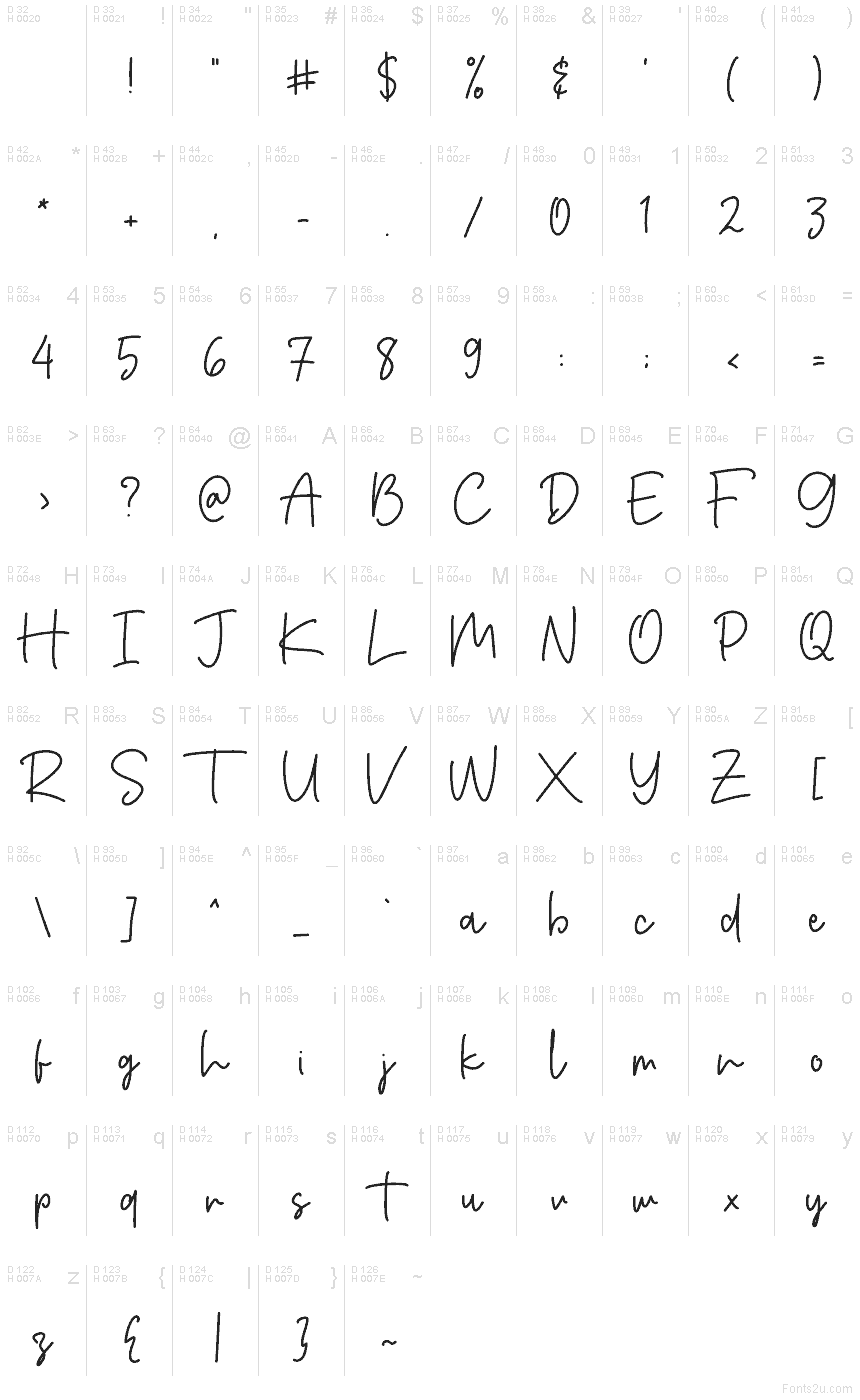
Kelly And Ryan
Kelly And Ryan font by Graphicfresh showcases casual elegance with fluid lines and a contemporary feel. This handwritten font embodies relaxed sophistication, offering a charming and approachable look to your designs.
As a free handwritten font, it’s suitable for greeting cards, wedding invitations, luxury branding projects, logo design, posters, scrapbooking pages, stone engravings for headstones/monuments, stationery items such as letterheads or business cards, and much more.